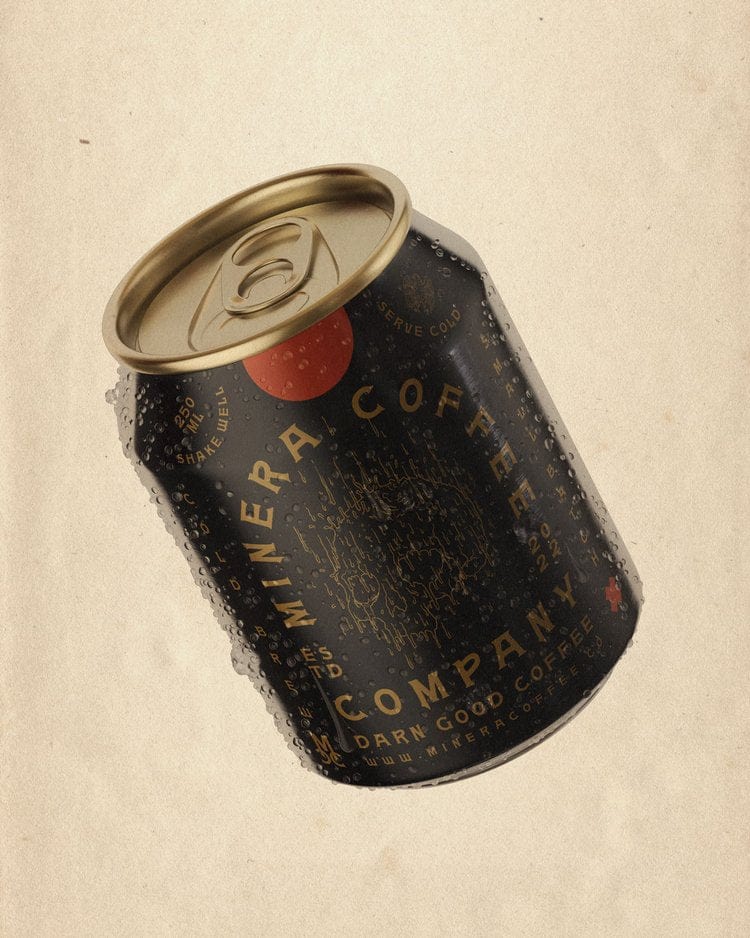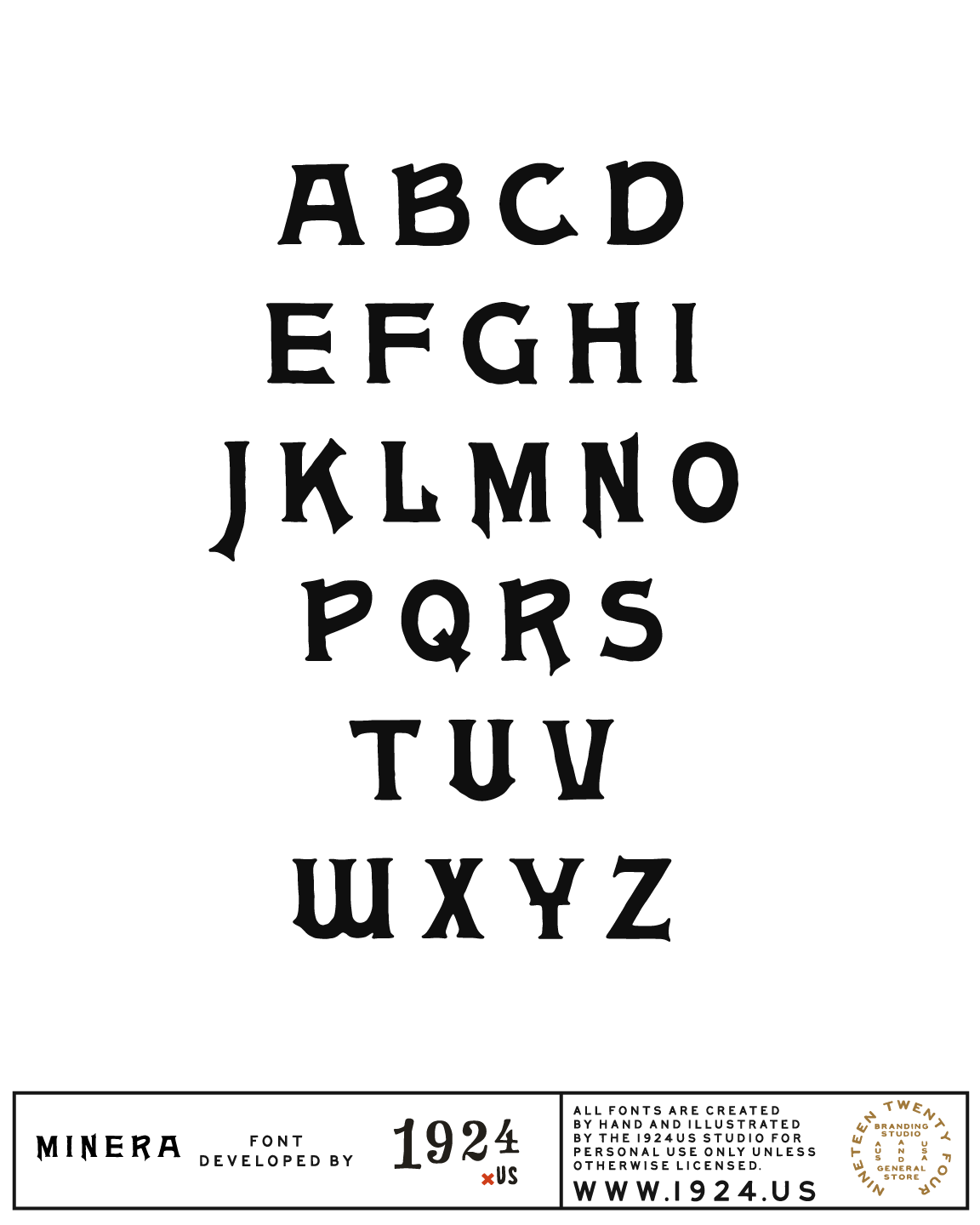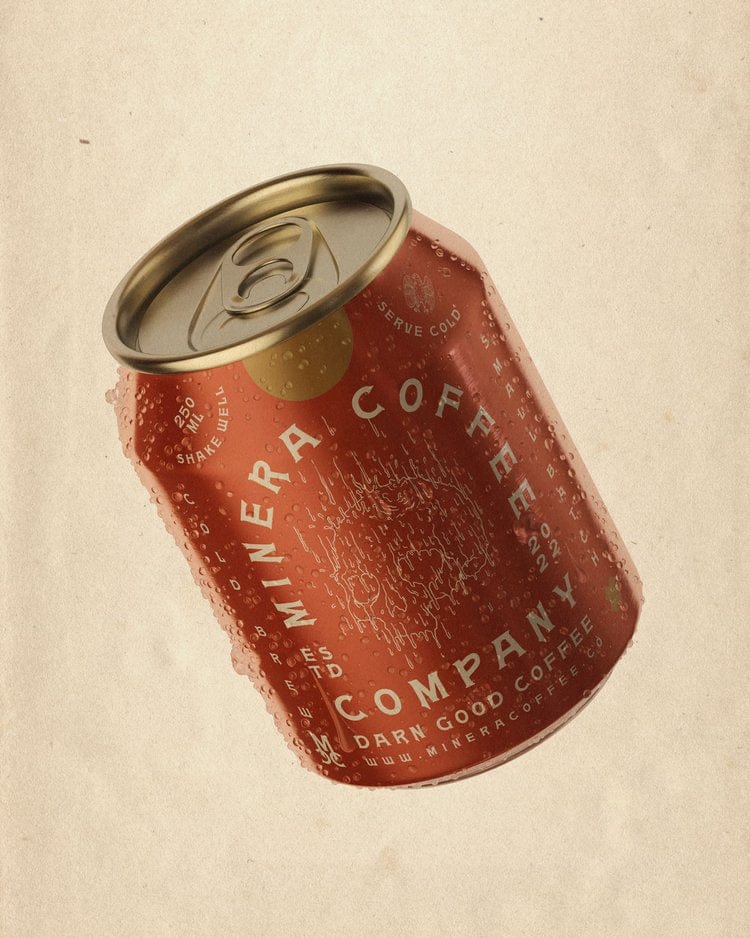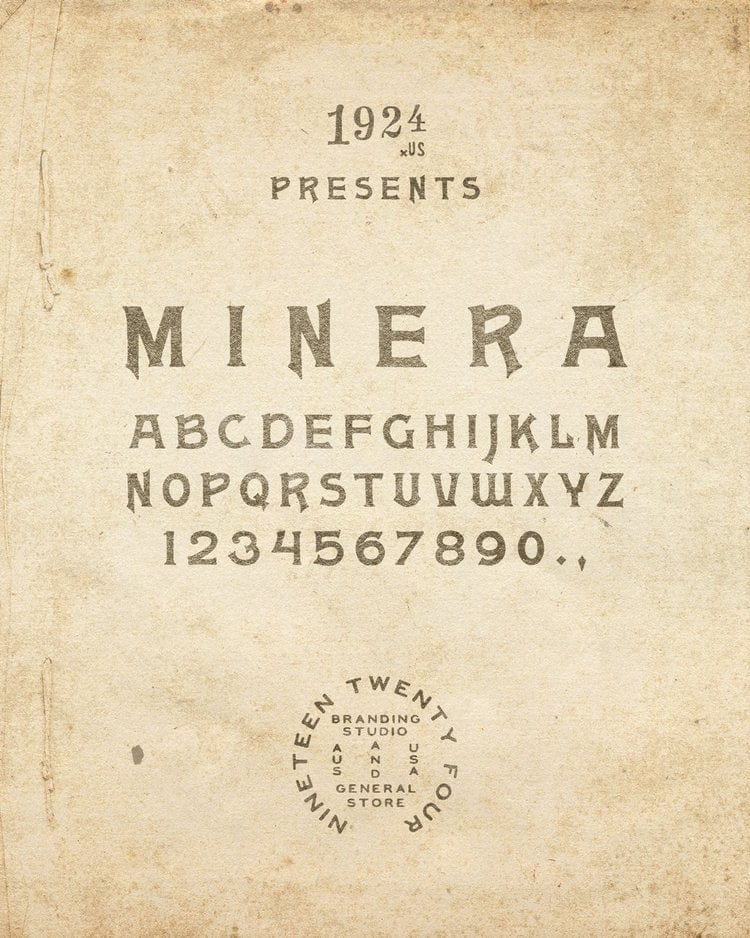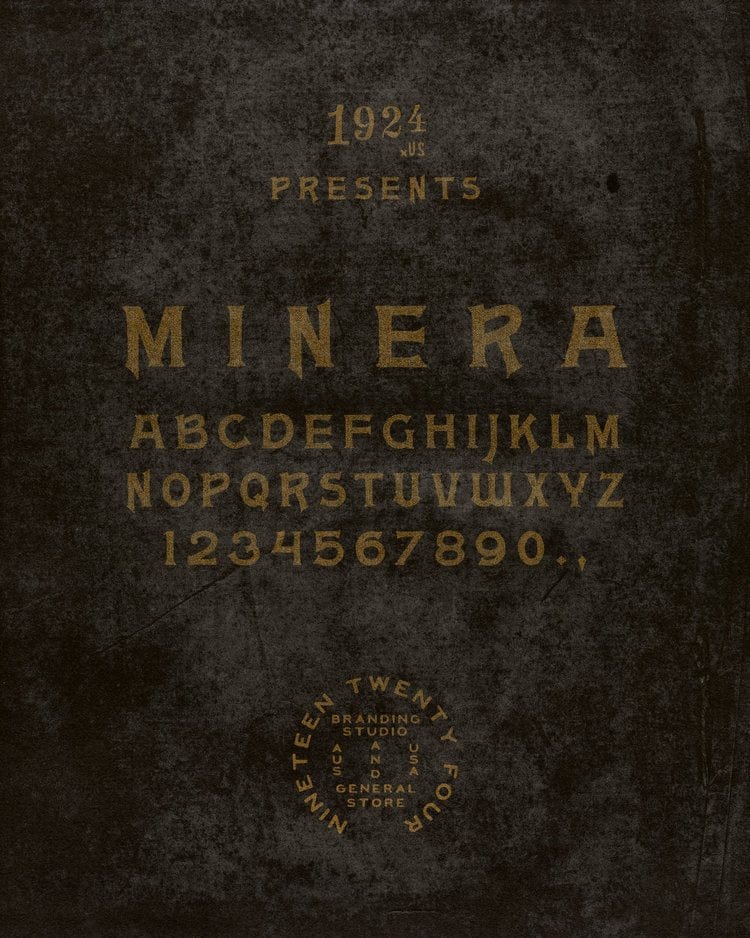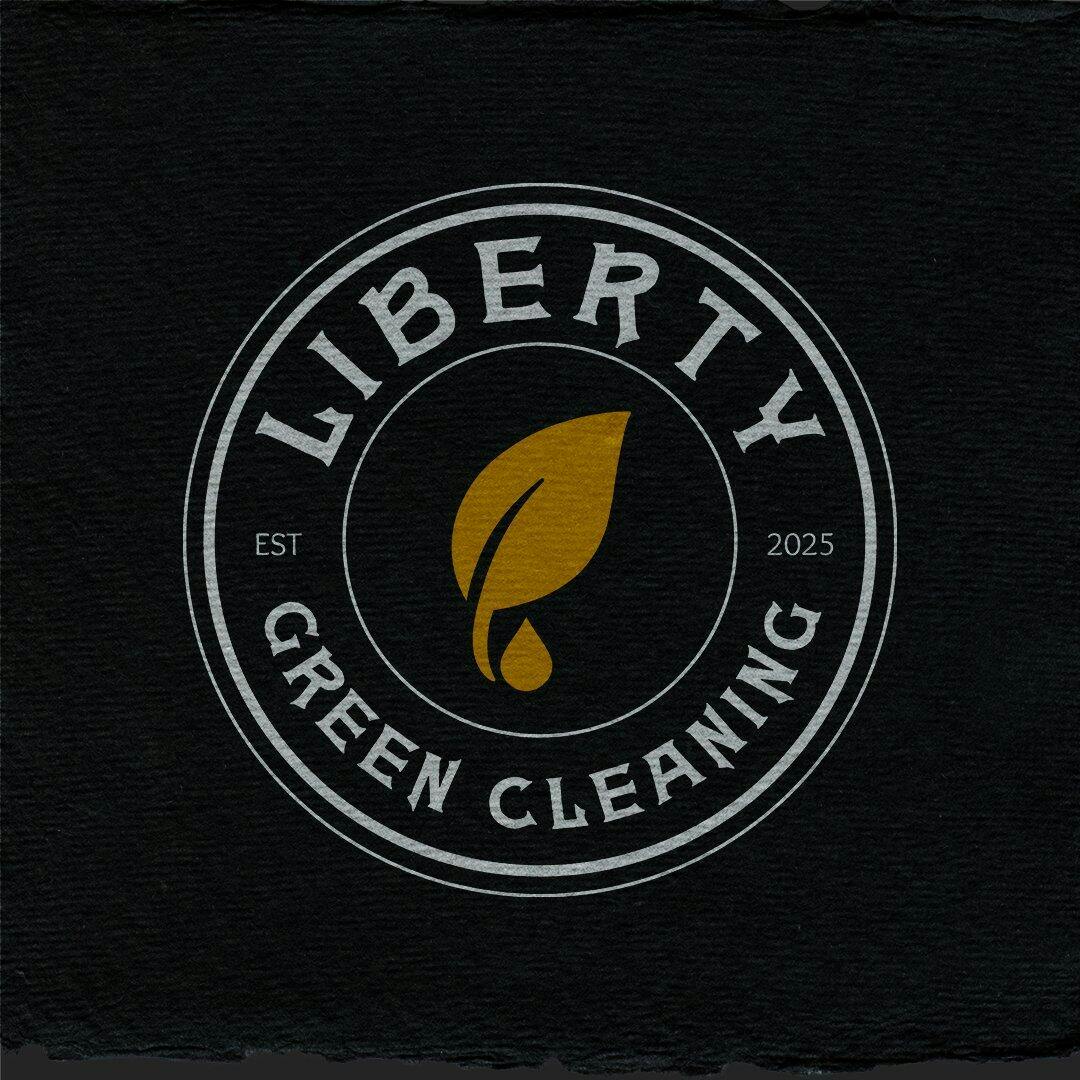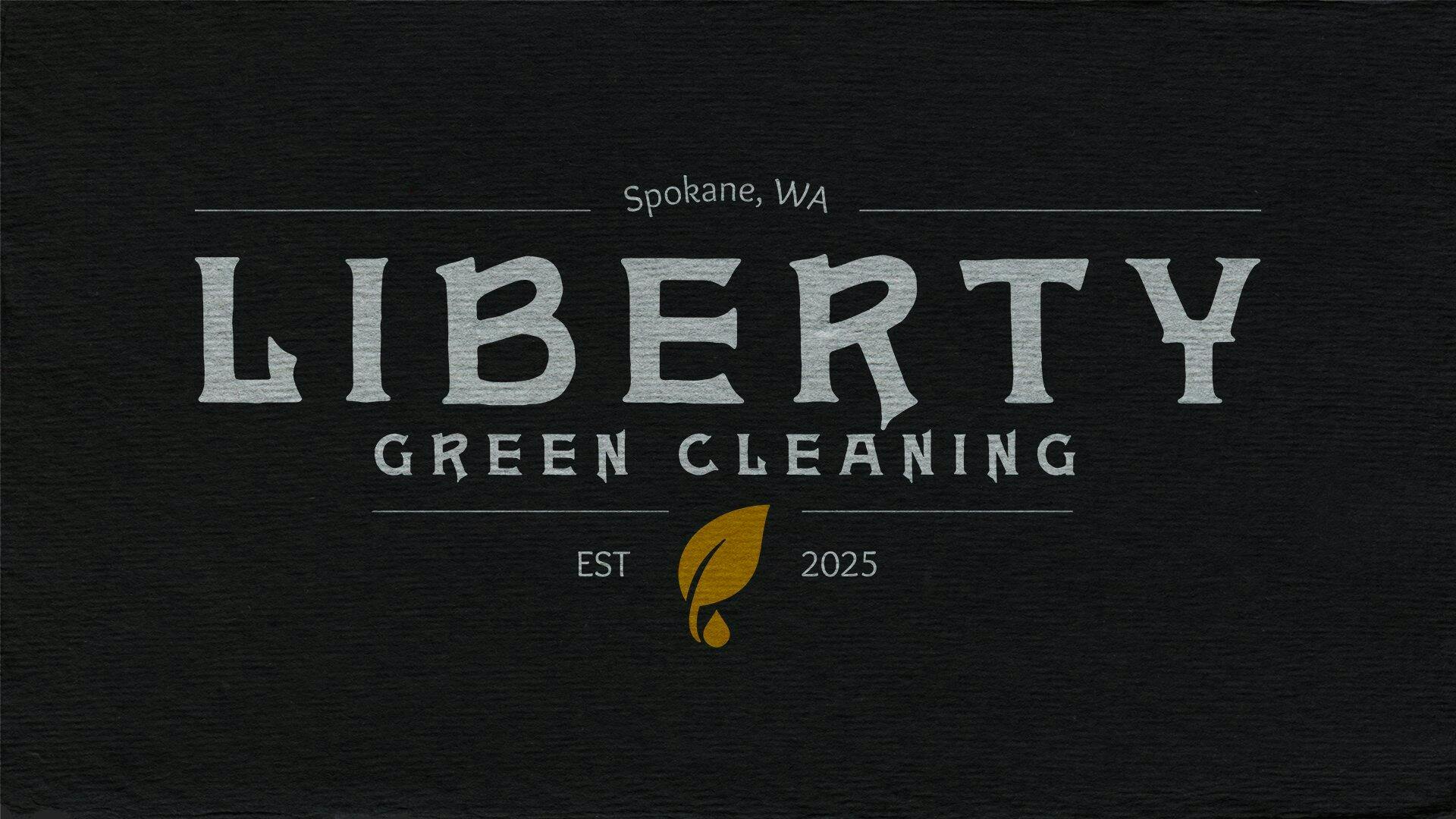
Gorgeous font
I downloaded this to see if it would work as the logo font for my friend's small business. It sure does! She loves it, and it is now a key component in her branding. 🙌 thanks so much!!
Beautiful font! Can’t wait to download and try out the others.